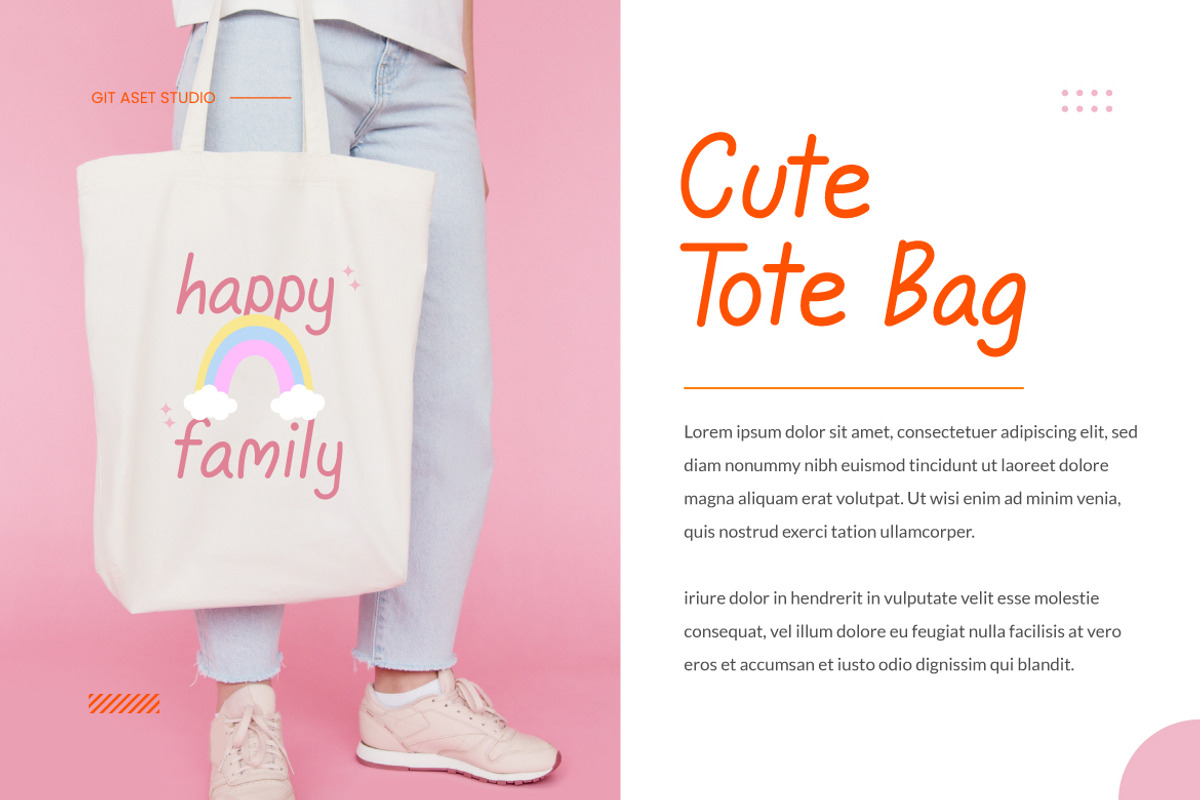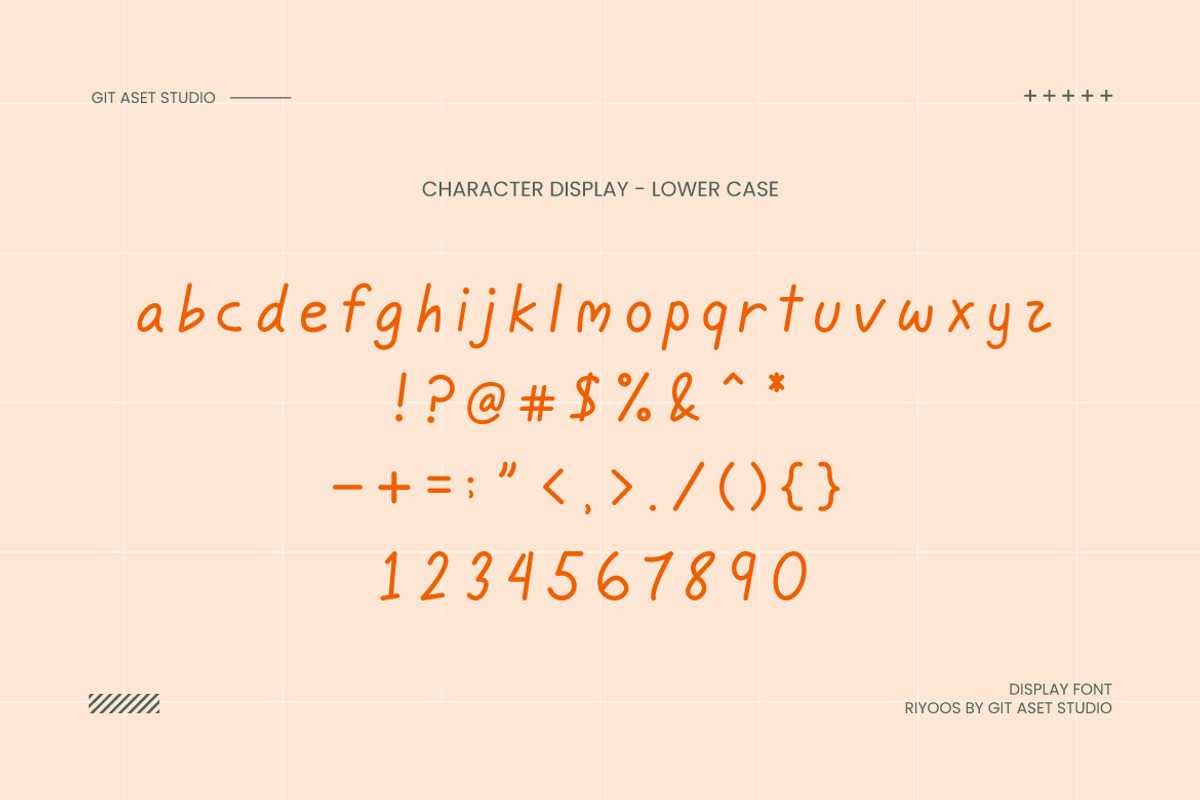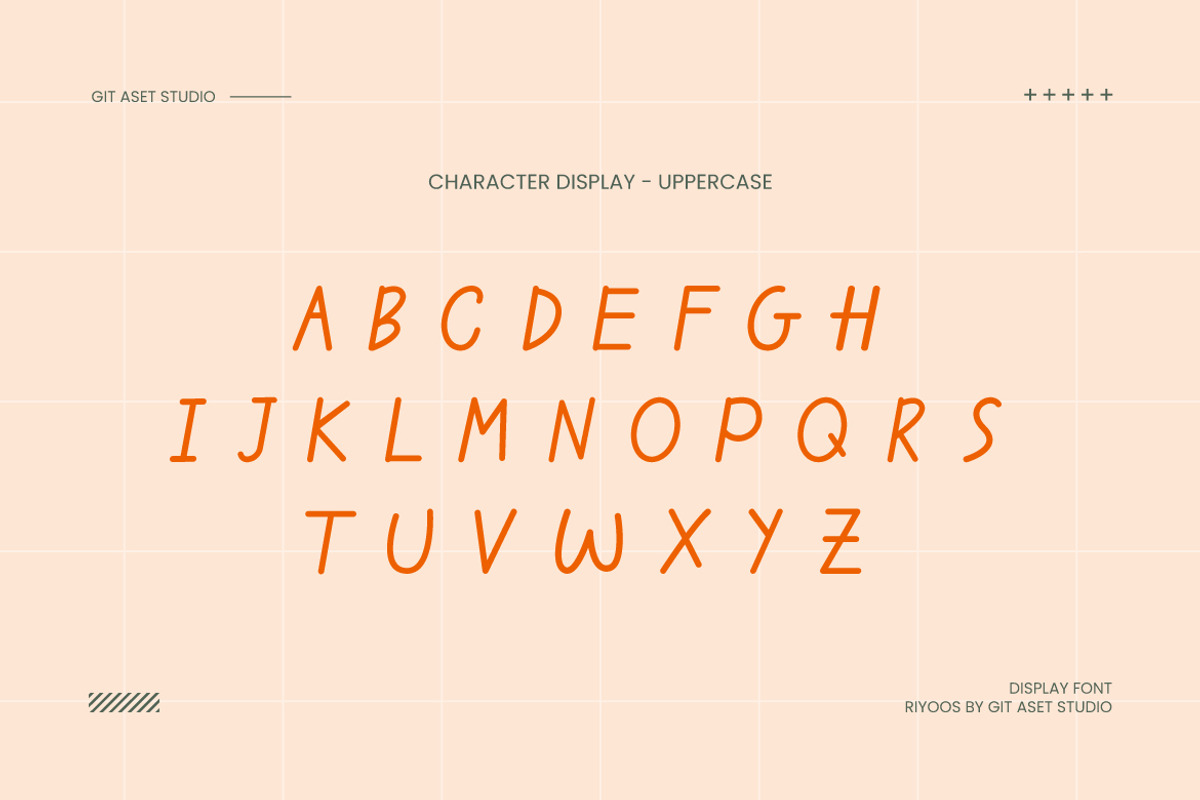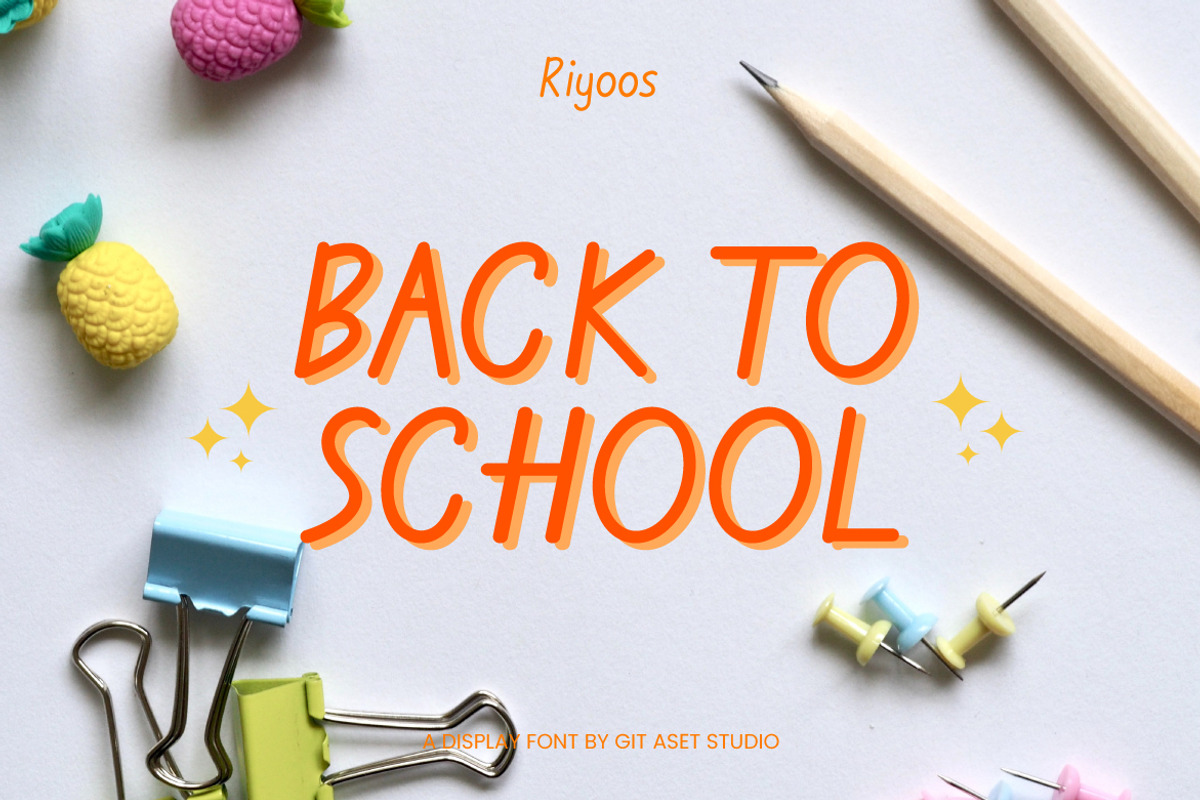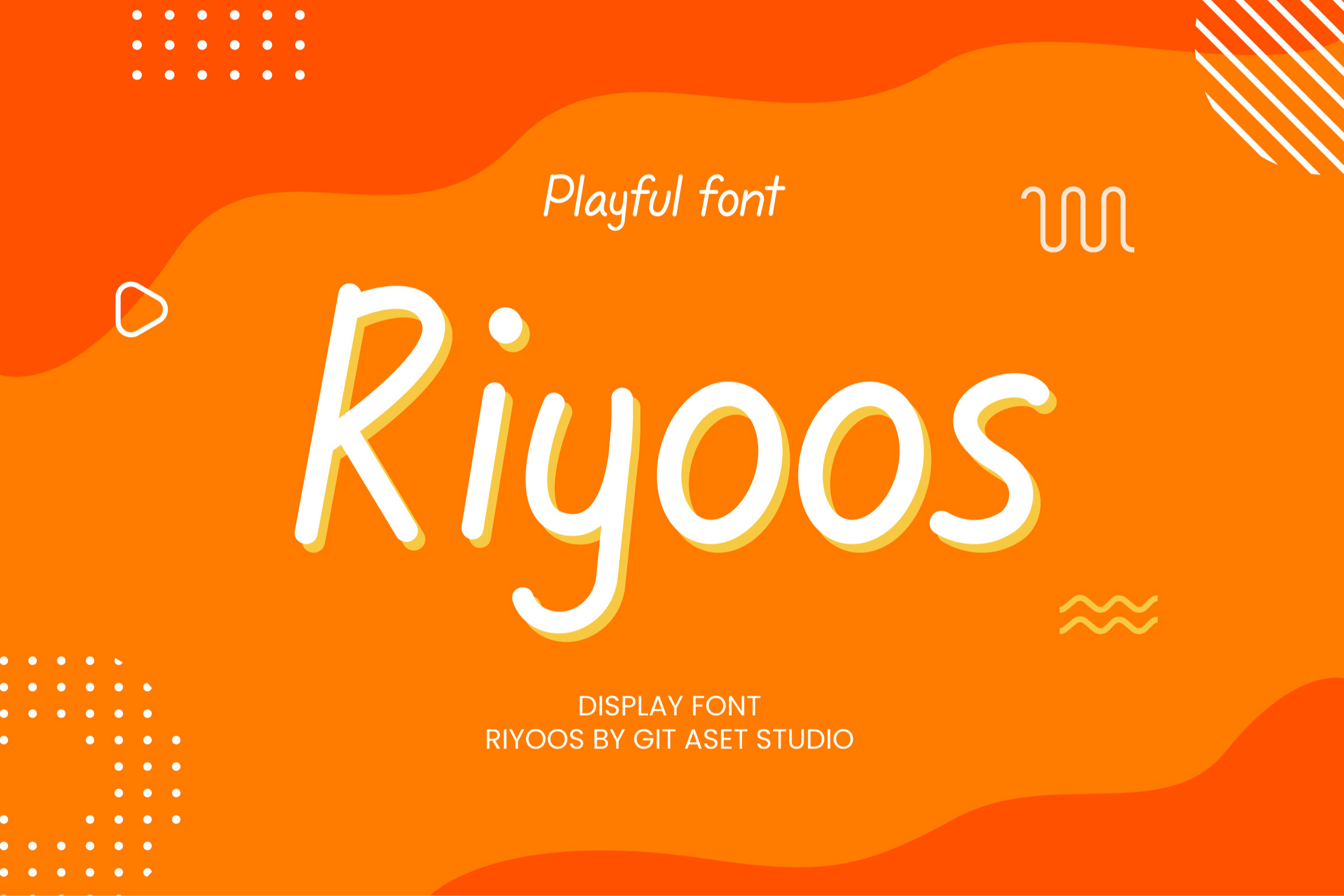
Riyoos Fun Display Playful font
Welcome to Riyoos the playful font that will add a touch of whimsy to your design projects! With both OTF and TTF file formats available, this versatile font can be easily incorporated into your creative work.
Whether you're designing a children's book, a party invitation, or a fun logo, Fun Display is the ideal choice. Its fun and playful appearance lends itself perfectly to projects that require a friendly and light-hearted touch.
Suitable for both professional designers and amateurs looking to add a creative touch to their projects, Fun Display is a great asset for a wide range of users. Whether you're a graphic designer, a teacher, or a party planner, this font will elevate your designs and bring them to life.